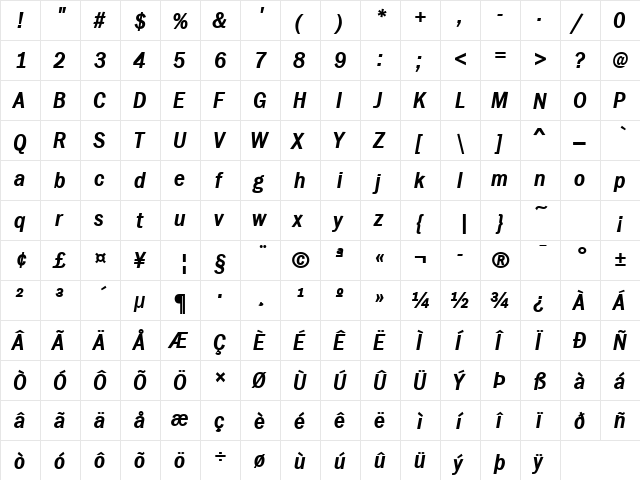
FranklinGothicCondH Bold Italic
Design Context for FranklinGothicCondH Typeface
FranklinGothicCondH has the quiet confidence of well-executed sans-serif typography: versatile, unobtrusive, and dependable at any size. The slanted form adds forward momentum and visual energy. Its bold stroke weight gives it real presence on the page. The condensed width makes it efficient for tight spaces without sacrificing legibility.
A strong choice for UI design, app interfaces, bold signage, and corporate brand systems.
Font Pairing: Use FranklinGothicCondH for headlines alongside a lighter-weight sans or serif for body copy to establish clear visual hierarchy.
Pro Tip: Try FranklinGothicCondH in all-caps with moderate tracking for navigation and label copy — it performs well in systematic UI contexts.